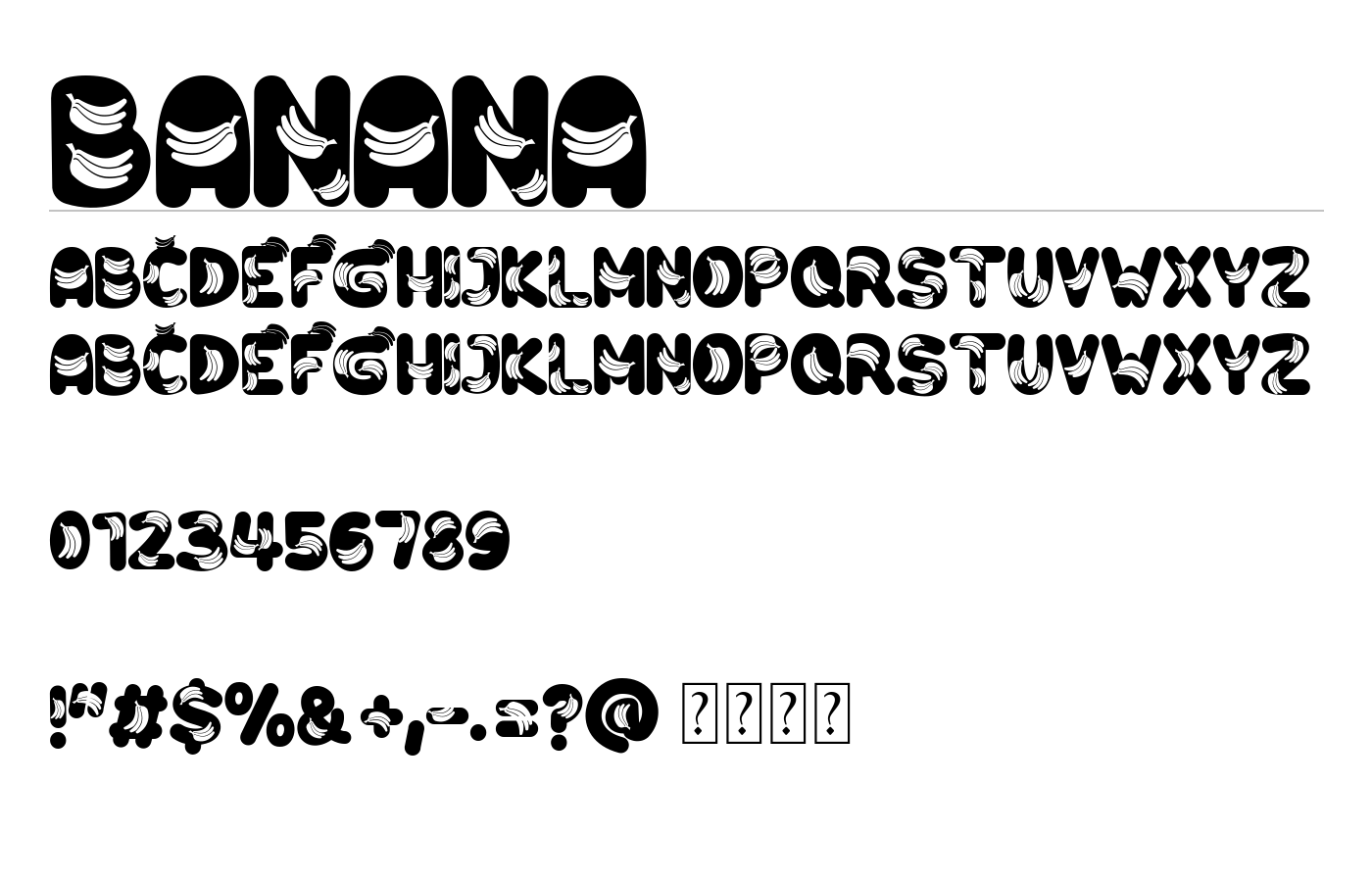
Banana Font is a playful and bold display typeface characterized by thick, rounded letterforms filled with whimsical banana illustrations, giving it a fun and tropical vibe. Its heavy weight and unique decorative details make it perfect for eye-catching headlines, logos, and packaging that want to convey a lively, cheerful, and informal mood. This font works best in creative, food, or children's branding where a sense of humor and approachability is desired.
Banana Font
About Banana Font